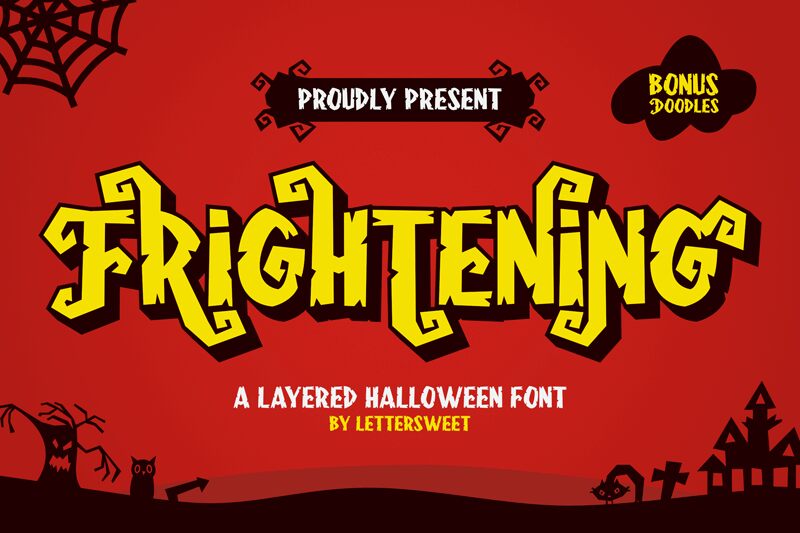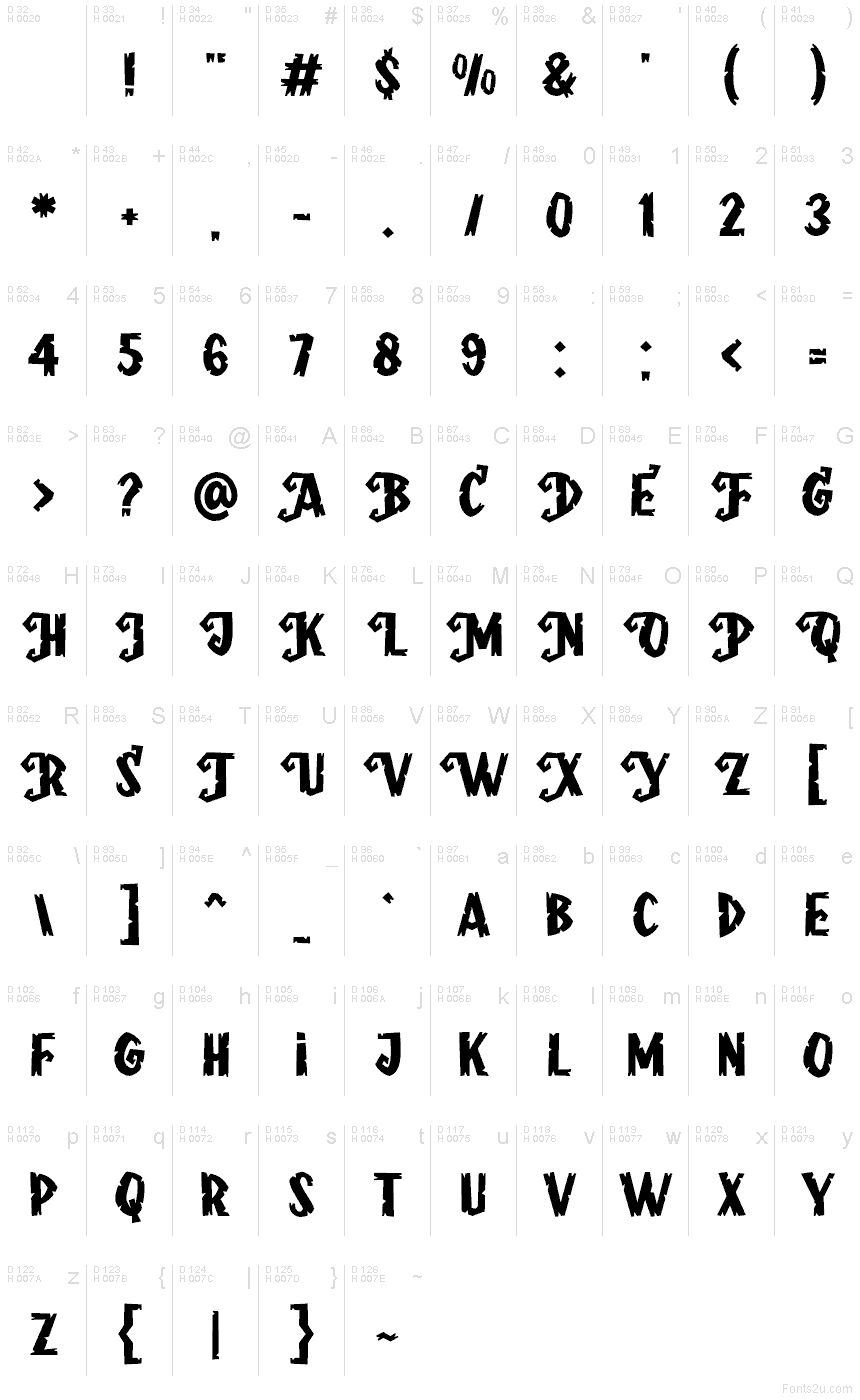
Frightening FREE Regular
Frightening font by Lettersweet Studio is a free Halloween display font. Its letters look hacked from black paper—chunky, jagged, and full of whorled cutouts that feel like swirling eyes. The rhythm is bold and uneven on purpose, giving headlines a splintered, haunted energy without becoming unreadable. Think scratchy edges, inky fills, and just enough chaos to grab attention fast.
Using Frightening, you can nail party posters, haunted house flyers, trick-or-treat bags, social posts, YouTube thumbnails, and seasonal shop signage. The heavy shapes hold up at large sizes and still punch through busy backgrounds. Pair this free font with a calm, neutral sans for body copy, and let Frightening shout the headline.